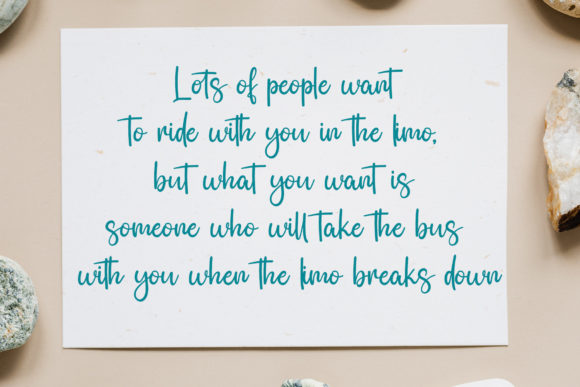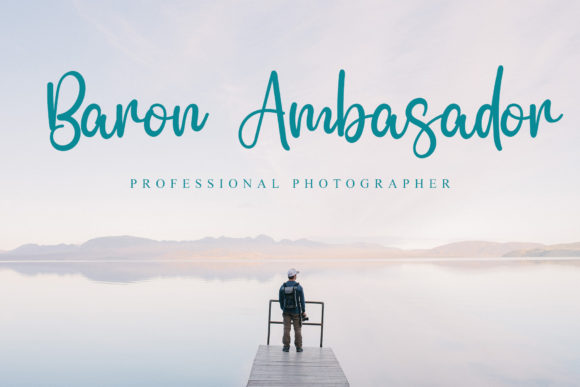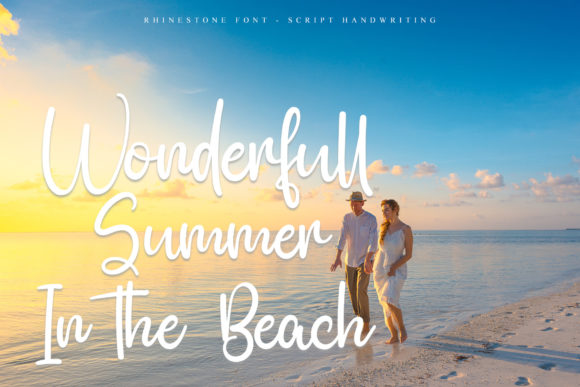
Introduction to Rhinestone Font
As you sit in front of your computer, staring blankly at a blank canvas, the creative juices start to flow. You have a vision – a beautiful, elegant design that will leave a lasting impression. But, the right font can make all the difference. That’s where the Rhinestone Font comes in – a delicate script font that exudes class and sophistication.
With its high-quality design, the Rhinestone Font is a valuable resource for designers looking to add a touch of elegance to their creative projects. Whether you’re working on a free download or a paid design, this font is sure to elevate your work. Plus, with a transparent background, you can easily layer it with other design elements to create a truly unique look.
Key Features of Rhinestone Font
- High-quality, vector-based font design suitable for various creative projects.
- Features a unique, rhinestone-inspired design element, adding a touch of luxury and sophistication to any project.
- Perfect for designers, crafters, and artists working on creative projects that require a touch of glamour and elegance.
Honest Review: Rhinestone Font
I recently had the chance to work with the Rhinestone Font, and I must say it’s a fantastic addition to any design project. ✨ The font’s high quality is immediately apparent, with intricate details and a luxurious feel that’s perfect for creative projects.
Here are some of the things that work well with the Rhinestone Font:
- Its versatility: the font can be used in a range of creative projects, from branding to editorial design.
- Its high quality: the font’s intricate details and luxurious feel make it a great choice for designers who want to add some extra flair to their projects.
That being said, there are a few limitations to be aware of:
- ⚠️ Limited font styles: while the font is high quality, it’s limited to a single style, which may not be suitable for every project.
- ⚠️ Potential for overuse: the font’s luxurious feel can be overused if not used carefully, so be sure to mix it up with other fonts to avoid a cookie-cutter look.
Overall, I’m really impressed with the Rhinestone Font, and I think it’s a great addition to any design resource library. It’s perfect for designers who want to add some extra flair to their creative projects, and its free download and transparent background make it a convenient choice for designers on a budget.
How to Use Rhinestone Font
The Rhinestone Font is ideal for various design projects, including wedding invitations, party decorations, and fashion designs. Its versatility and high-quality design make it a popular choice among designers.